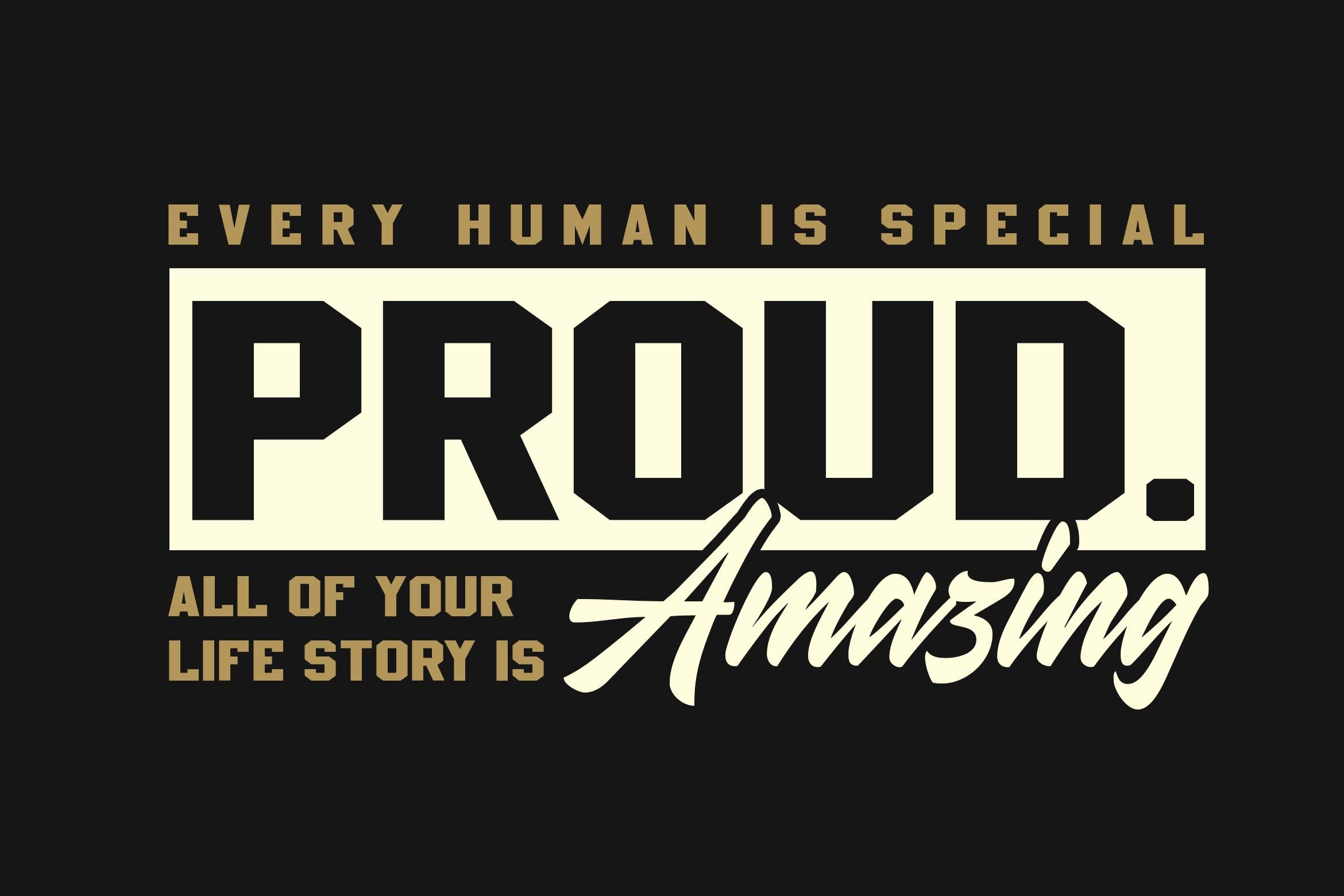
Golden Varsity Font
Golden Varsity is a bold sports display font perfect for professional projects, including logos, watermarks, posters, branding, promotions, packaging, and more. Each letter embodies a classic varsity and collegiate style, making it ideal for sporty and retro-themed designs.
This font set includes a collection of uppercase and lowercase letters, numerals, and punctuation, all inspired by traditional athletic typography. With its strong and dynamic look, Golden Varsity brings an energetic, retro sports vibe to any design.